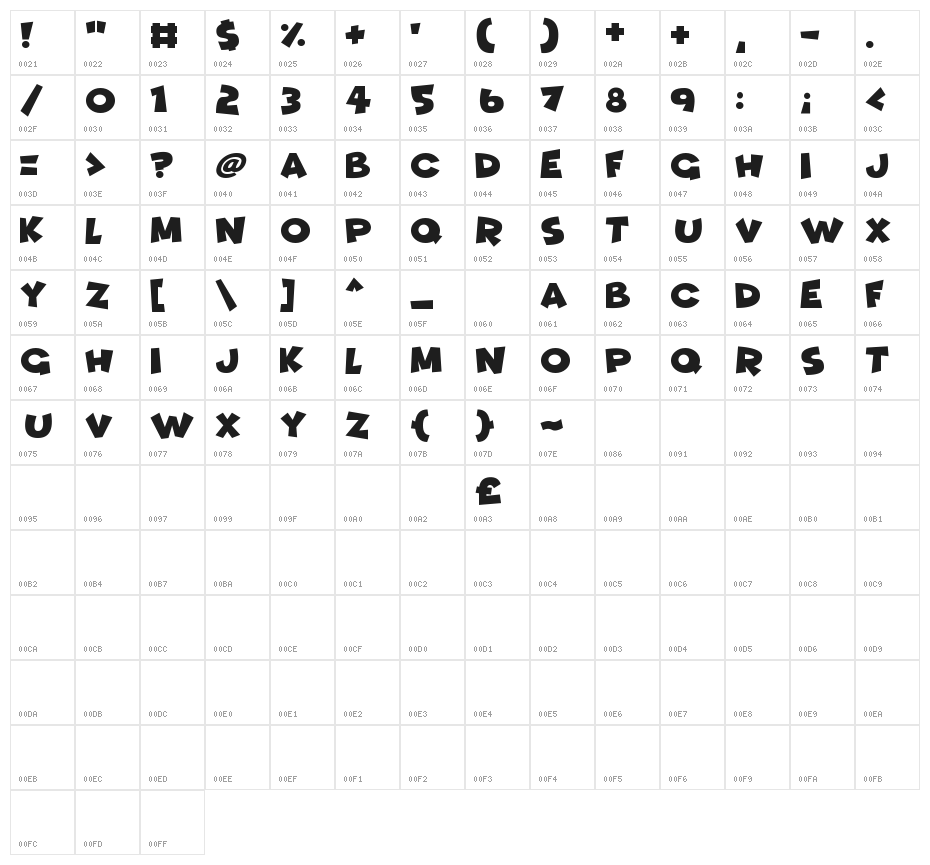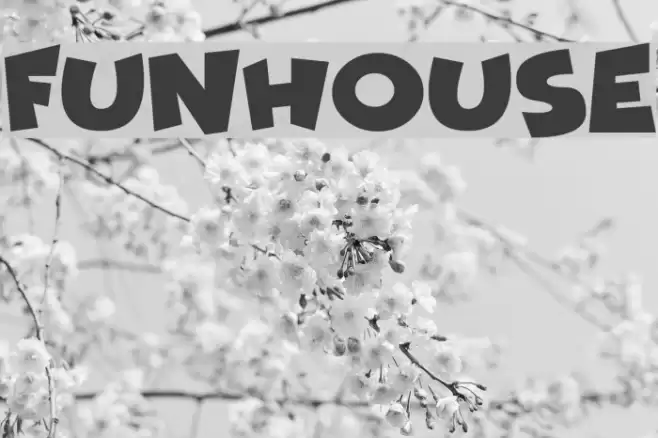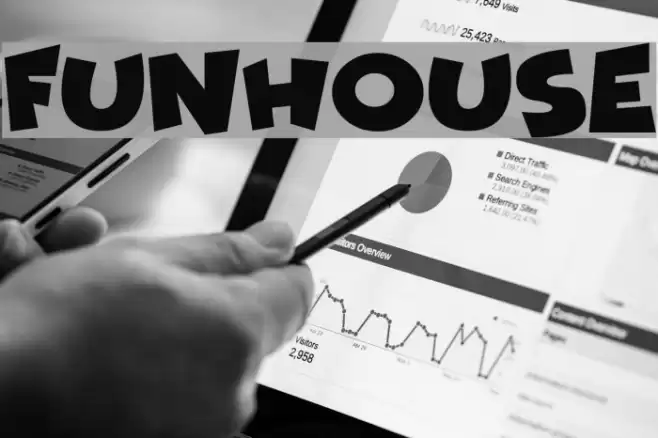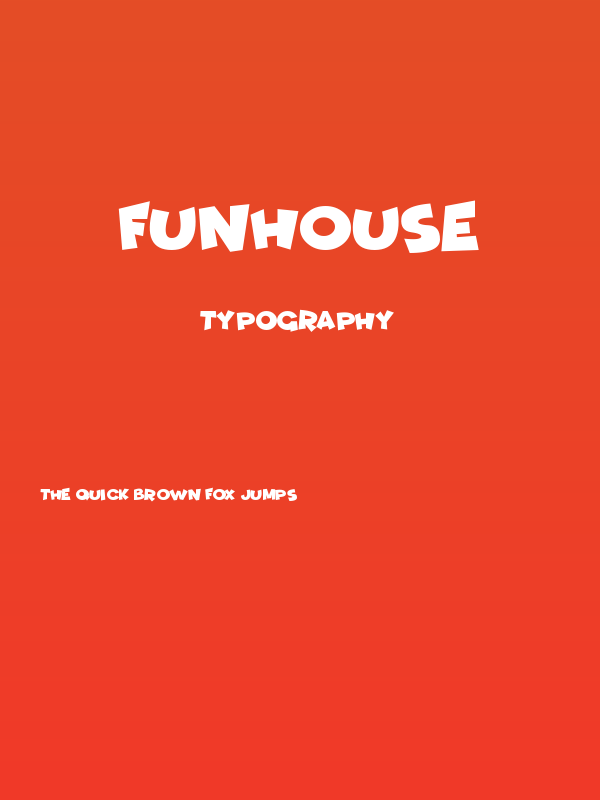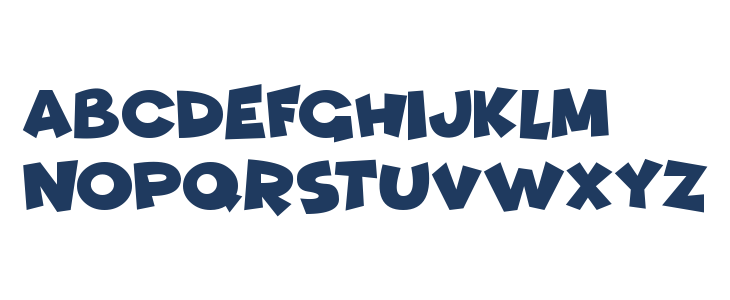
Funhouse Font
Funhouse Description
This playful and bold font features exaggerated, irregular shapes that create a sense of fun and whimsy. The letters are thick and chunky, with uneven edges that give them a hand-drawn appearance. The style is reminiscent of carnival or circus themes, making it ideal for designs that aim to capture attention and convey a sense of excitement. The numbers and special characters maintain the same lively aesthetic, ensuring consistency across all text elements.
| Overall Style | Playful, Fun, Whimsical |
| Proposed Projects | Ideal for children's books, party invitations, posters, and playful branding projects. |